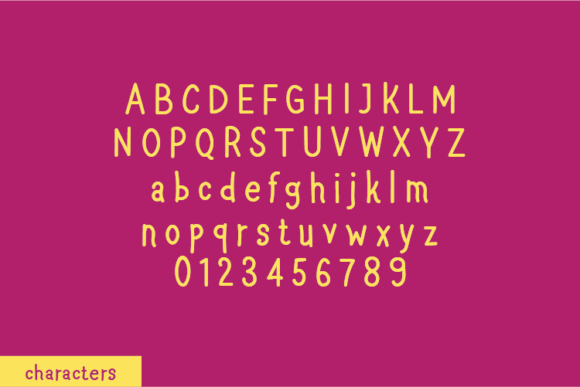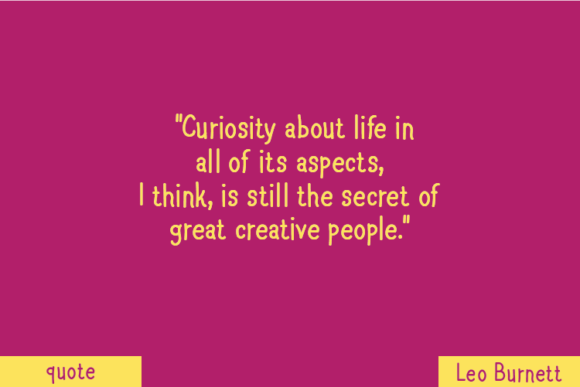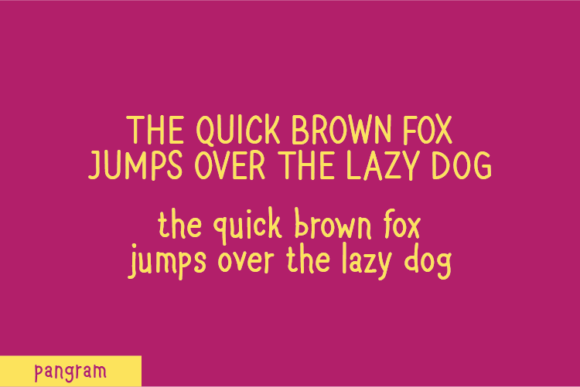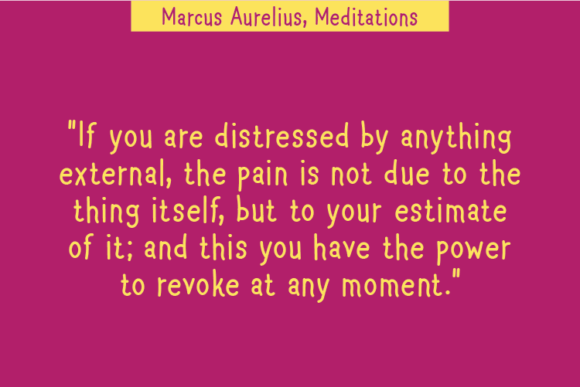
Introduction to Rebellious Font
Have you ever been working on a creative project, pouring your heart and soul into it, only to realize that something is missing? That’s exactly what happened to me when I stumbled upon the Rebellious Font. Its unique, natural handwritten style immediately caught my attention, and I knew I had to learn more about it.
As a designer, I’m always on the lookout for high-quality design resources that can take my projects to the next level. And let me tell you, the Rebellious Font is a game-changer. With its transparent background and free download option, it’s the perfect addition to any creative project. Whether you’re designing quotes, notes, or even t-shirts, this font is sure to bring a touch of personality to your work.
What sets the Rebellious Font apart from other fonts is its commitment to staying true to its natural, handwritten style. Unlike other fonts that have been heavily edited to fit a specific aesthetic, the Rebellious Font remains unaltered, with each character’s indentation intact. This level of authenticity is invaluable for designers who want to create unique and meaningful designs that truly reflect their vision.
Key Features of Rebellious Font
- High-quality, unique design for creative projects, making it a valuable design resource.
- Features a transparent background, allowing for easy customization and layering in design compositions.
- Includes a comprehensive character set, covering a wide range of languages and special characters.
- Unique, bold, and edgy style, perfect for designers seeking a rebellious and attention-grabbing aesthetic for their creative project.
Honest Review: Rebellious Font
I recently came across the Rebellious Font and was immediately drawn to its edgy, high-quality design. This font is perfect for any creative project that requires a bold and unconventional touch.
What works well about the Rebellious Font is its versatility. It can be used in a variety of contexts, from graphic design to digital art, and its transparent background makes it easy to layer and manipulate. The font also comes with a free download, making it a great design resource for those on a budget.
- ✨ Versatile and can be used in a variety of contexts
- ✨ Transparent background for easy layering and manipulation
However, there are a few limitations to consider. The font may not be suitable for all types of projects, particularly those that require a more subtle or elegant touch. Additionally, the font’s bold lines and geometric shapes may be difficult to read in smaller sizes.
Overall, I’m impressed with the Rebellious Font and would definitely recommend it to designers and artists looking for a high-quality, creative design resource.
⚠️ Limitations to consider:
- May not be suitable for all types of projects
- May be difficult to read in smaller sizes
How to Use Rebellious Font
The Rebellious Font is a high-quality design resource that can elevate your creative project. With a transparent background, this font is perfect for adding a touch of edginess to your designs.
Tips for Getting the Most Out of Rebellious Font
Use the Rebellious Font in combination with bold graphics and bright colors to create a striking visual effect. Experiment with different font sizes and styles to add depth and interest to your design. Don’t be afraid to push the boundaries and try new things!
The Rebellious Font is perfect for creating bold and eye-catching designs for social media, advertising, and marketing materials. It’s also great for adding a touch of personality to your personal projects, such as blog posts, videos, and podcasts.